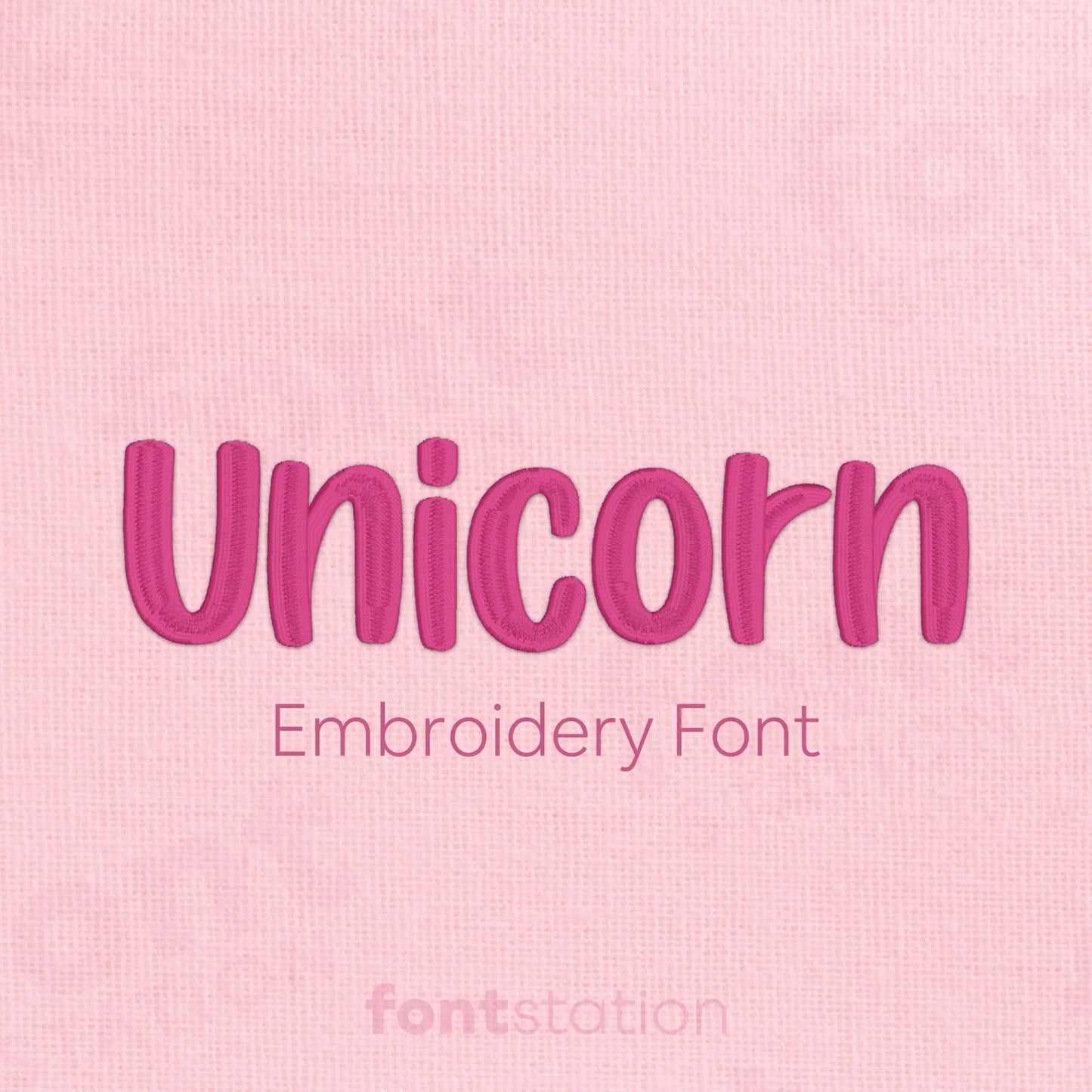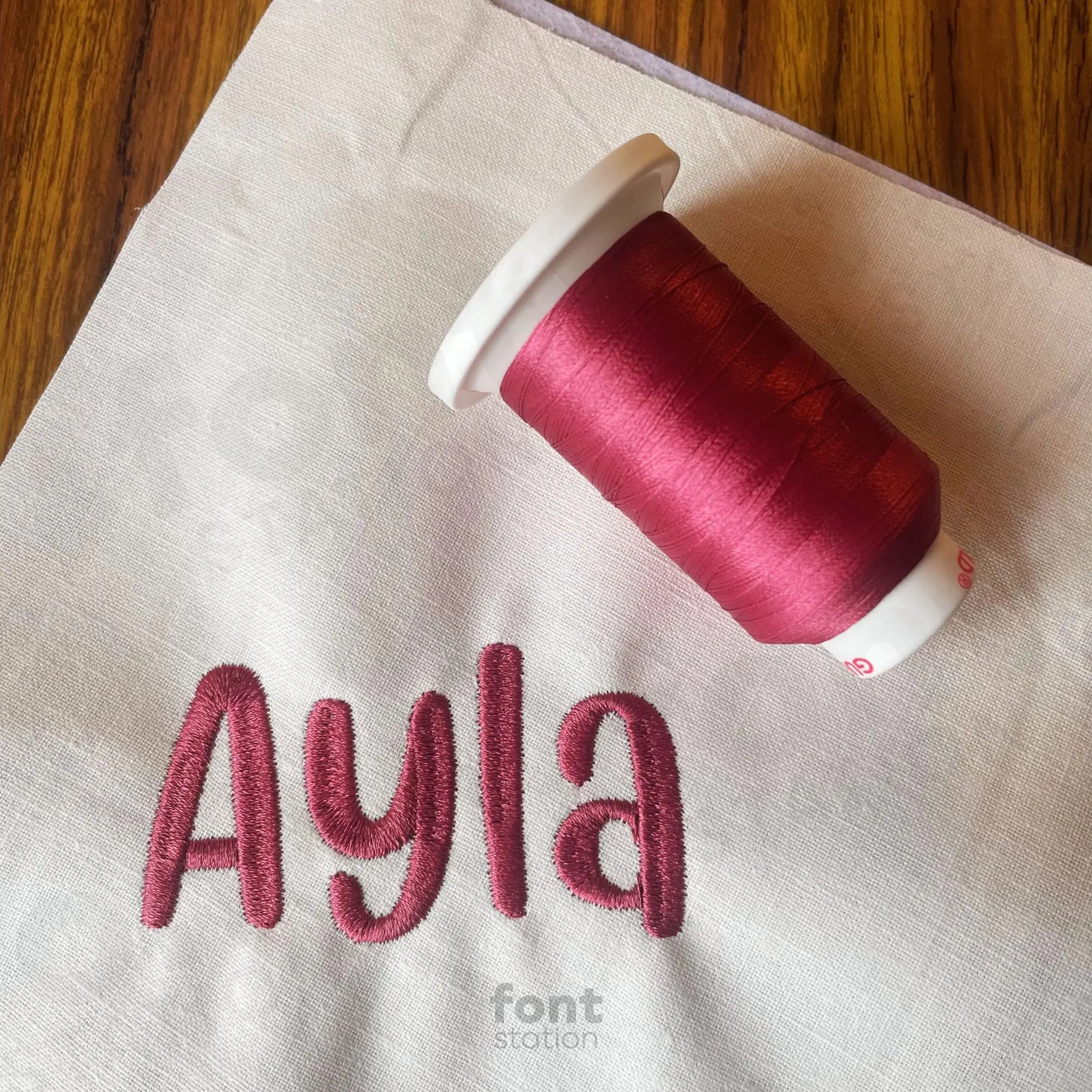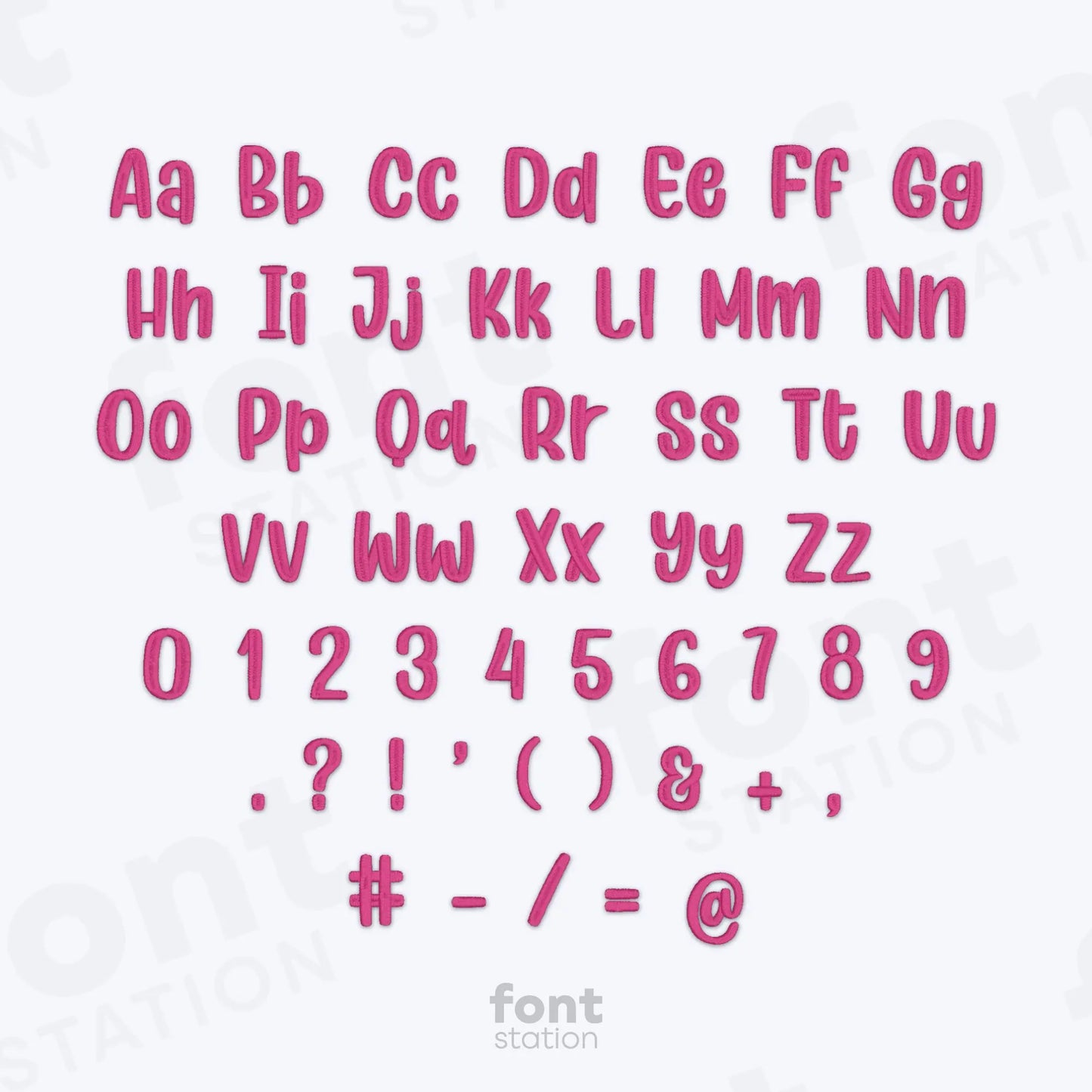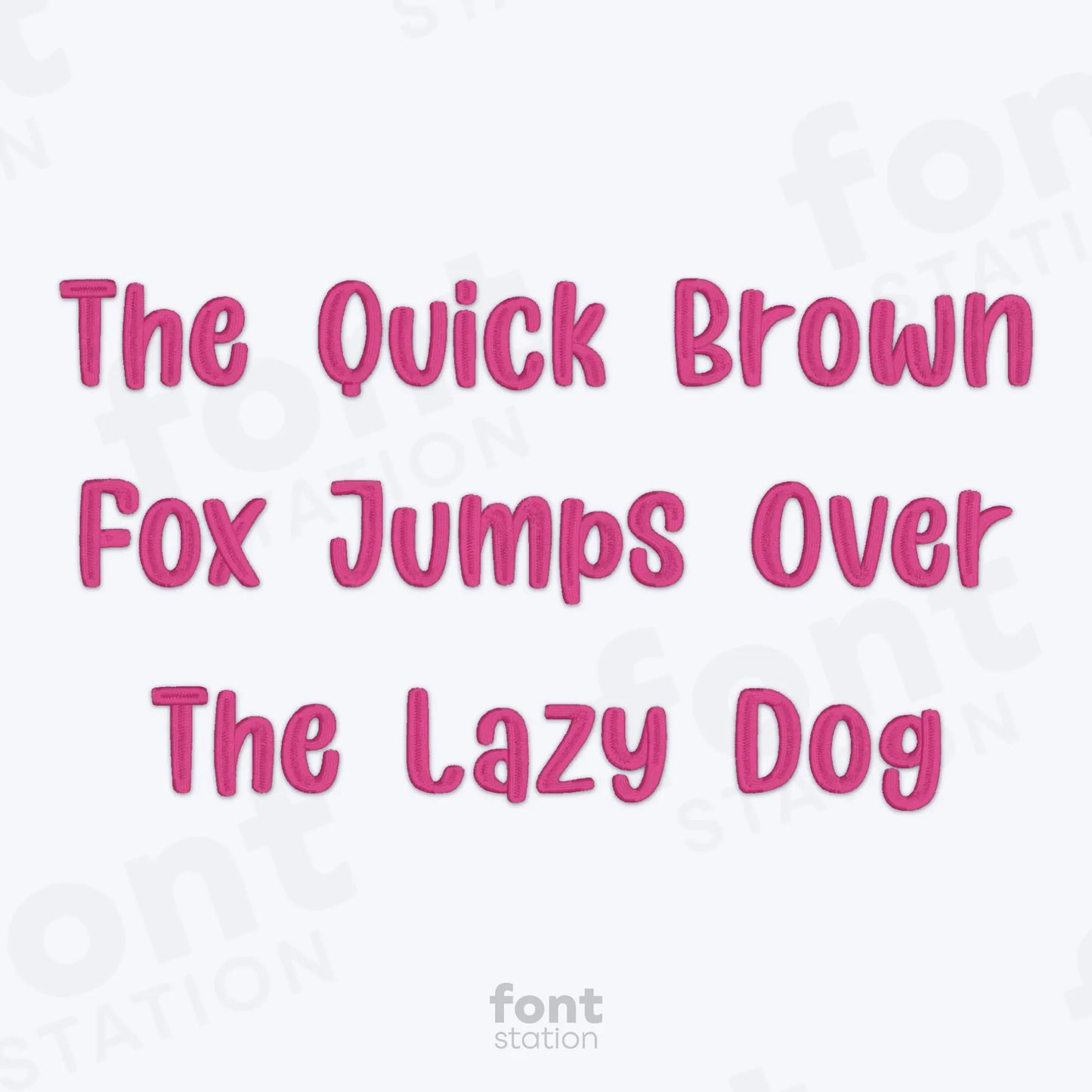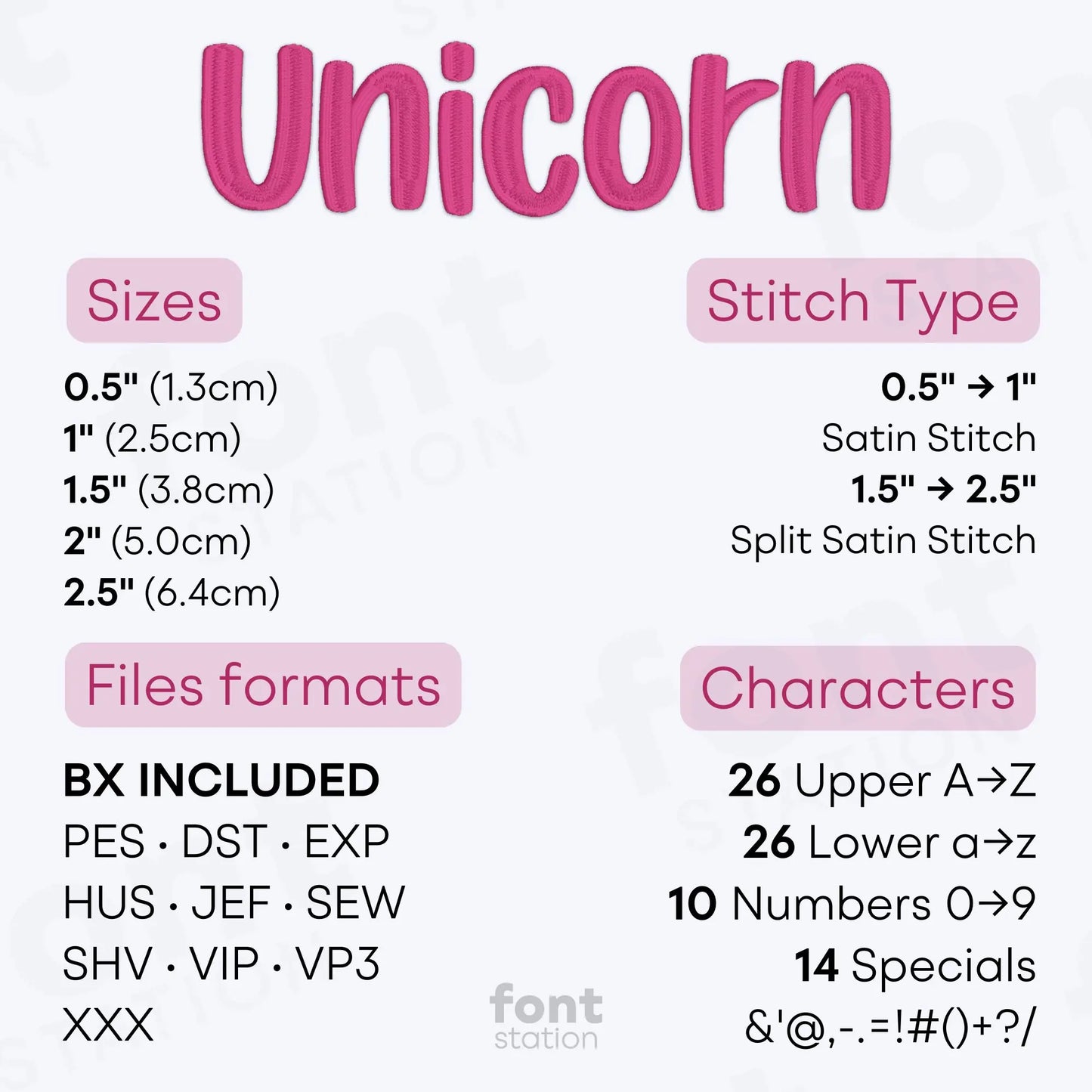
Unicorn Embroidery Font
Introducing our Unicorn embroidery font, a cute, girly alphabet with playful letters that stitch beautifully on your embroidery machine. Perfect for magical designs and any creative kids project.
About the Unicorn Embroidery Font
Satin Stitch: 0.5", 1", 1.5", 2", and 2.5"
Characters: 26 uppercase, 26 lowercase, 10 numbers, and symbols & ' @ , - . = ! # ( ) + ? /
Our Unicorn embroidery font brings a cute, girly, and magical touch to your embroidery projects.
This adorable machine embroidery font features a soft, rounded alphabet inspired by unicorns and fairy-tale style, perfect for kids’ names, baby gifts, nursery decor, and playful creations. Designed with charming details and smooth curves, these embroidery letters add sweetness, creativity, and personality to every design.